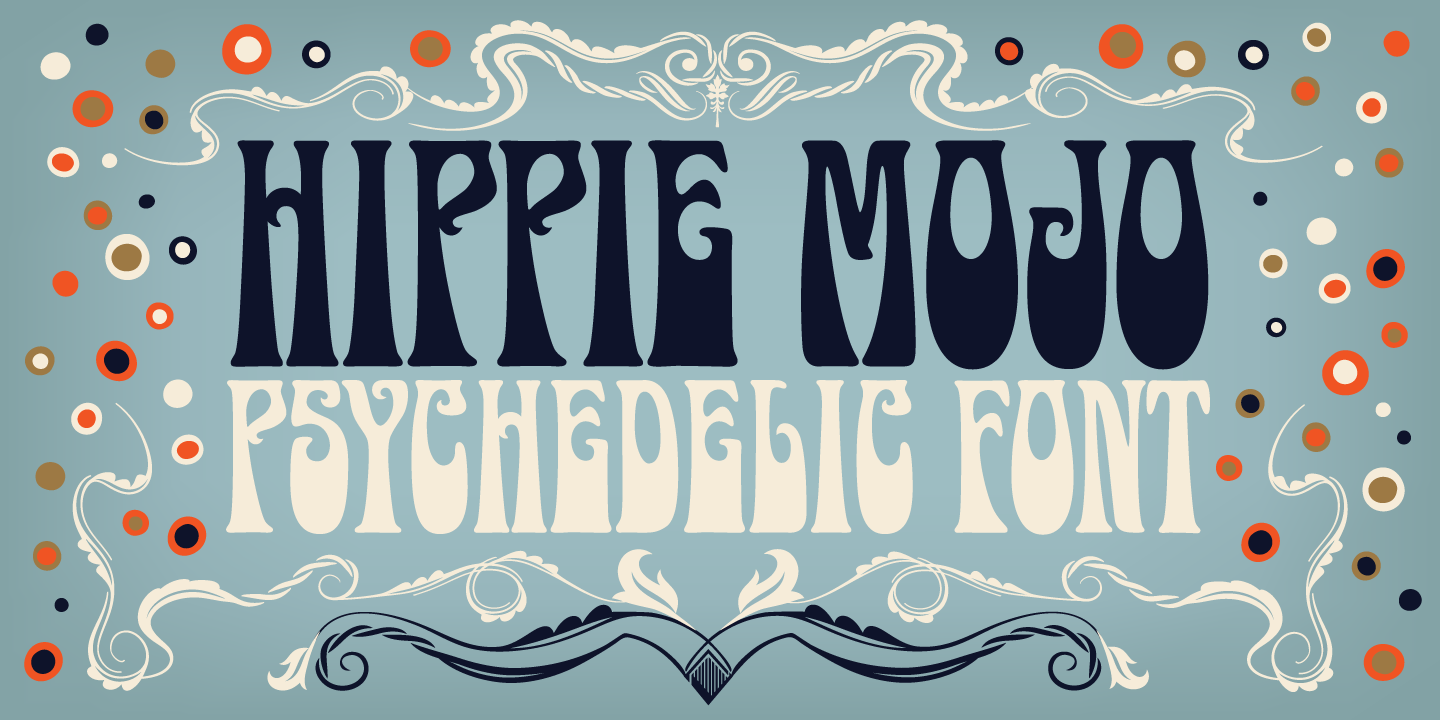
Channel the free-spirited energy of the 1960s with Hippie Mojo Font Free Download – a psychedelic display typeface bursting with peace-loving personality. This groovy font captures the essence of flower power with its swirling organic forms and hand-drawn imperfections, perfect for projects needing a dose of retro hippie charm.
Why Hippie Mojo Grooves:
3 Far-Out Styles (Regular, Outline, Trippy)
Authentic Brush Stroke Texture
Built-in Peace Symbols and floral elements
Perfect for Music Festival Vibes
Peaceful Applications:
Vintage concert posters
Holistic wellness branding
Artisanal product packaging
Tie-dye inspired designs
Retro vinyl record art
Uppercase and lowercase characters
Peace sign alternates and borders
Special "flower power" glyphs
Design Tip: Overprint trippy colors in CMYK for authentic vintage effects. Pair with watercolor textures and rainbow gradients for maximum flower power.